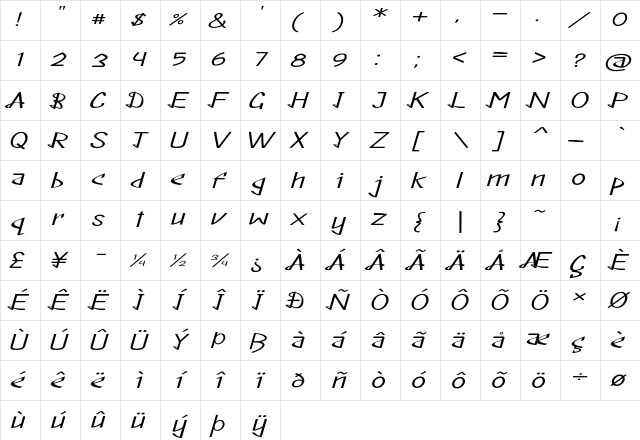
Distract Extra-expanded Italic Free Font
Distract Extra-expanded Italic
Style: Extra-expanded Italic
Distract Family
Distract Extra-expanded Italic
Complete Distract Extra-expanded Italic glyph index. Displaying only characters natively supported by Distract Extra-expanded Italic font.
Design Context for Distract
Distract is a composed and adaptable typeface that performs quietly and consistently across a wide range of design contexts. The slanted form adds forward momentum and visual energy.
Pro Tip: Use Distract for emphasis, pull quotes, and subheadings where its slanted energy can add rhythm to the layout.